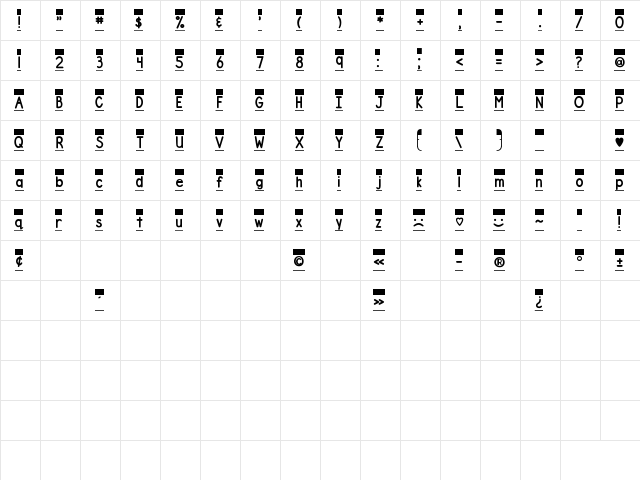
DJB File Folder Labels Regular
| Designer | Darcy Baldwin |
Design Context for DJB File Folder Labels Typeface
DJB File Folder Labels is a composed and adaptable typeface that performs quietly and consistently across a wide range of design contexts.